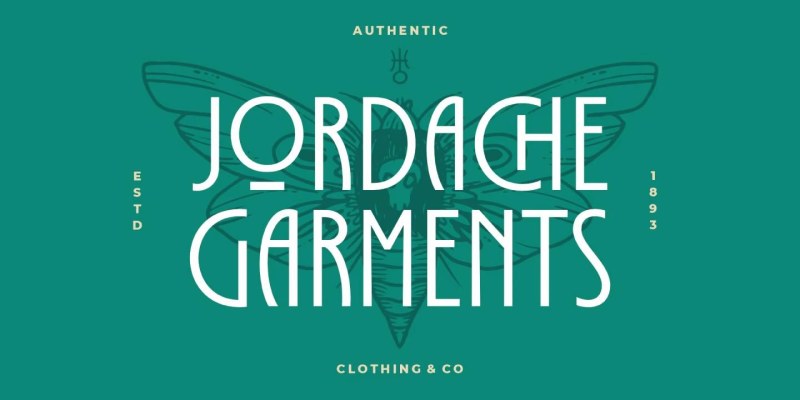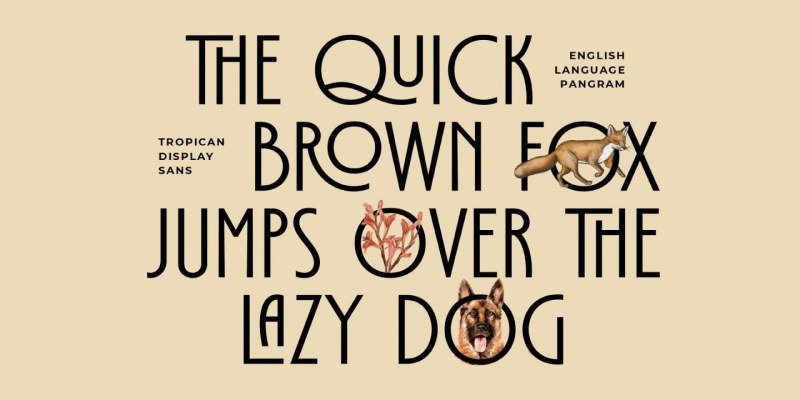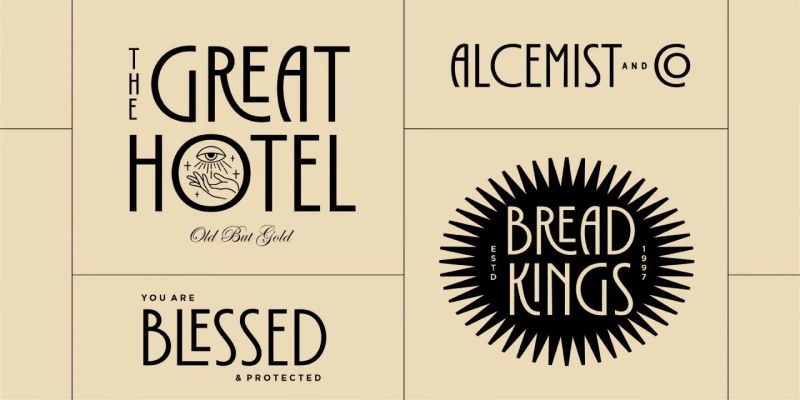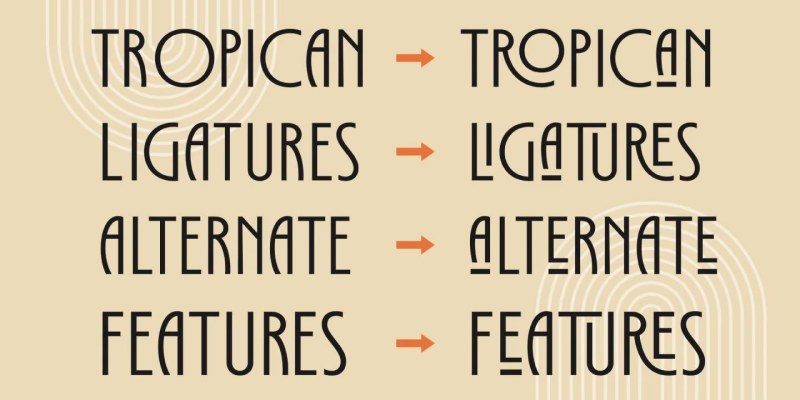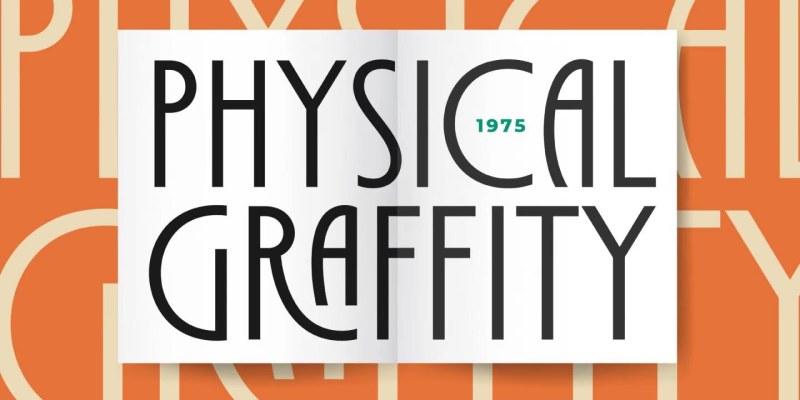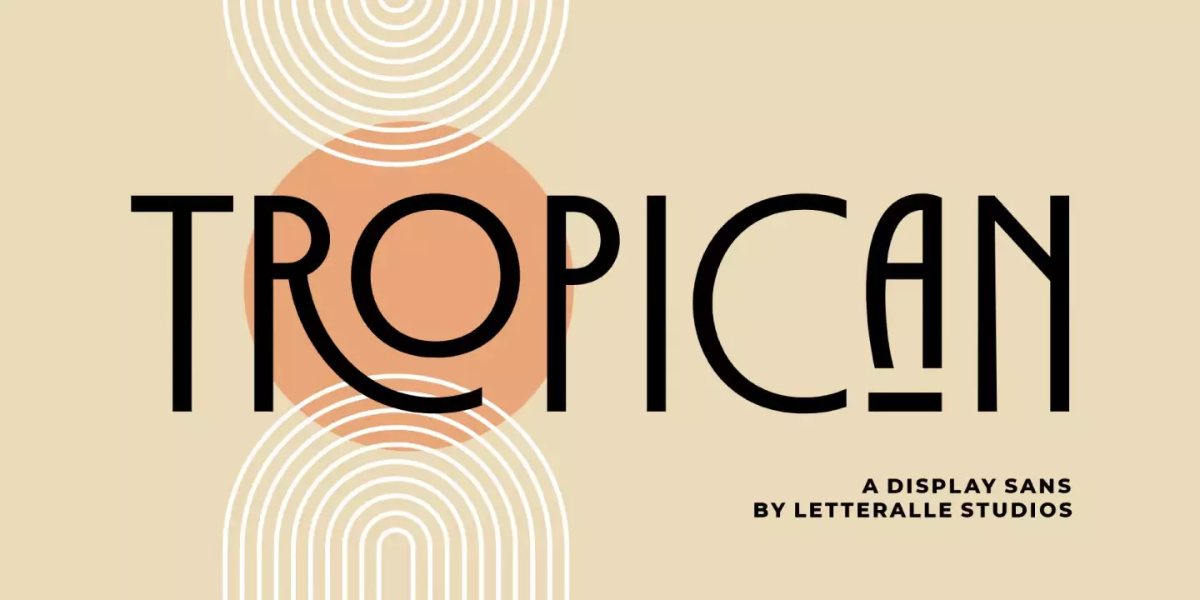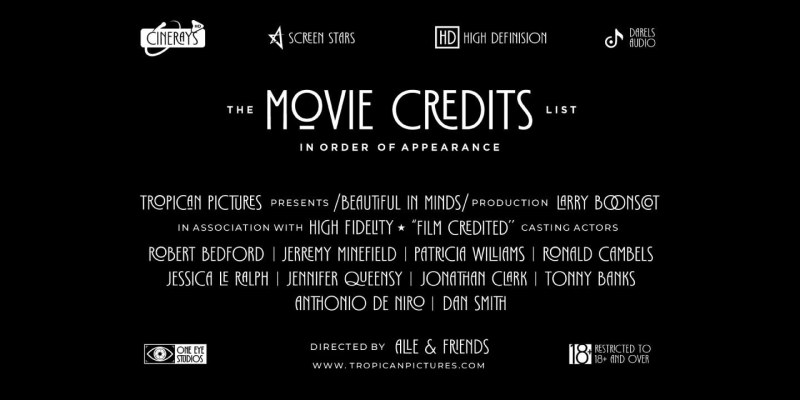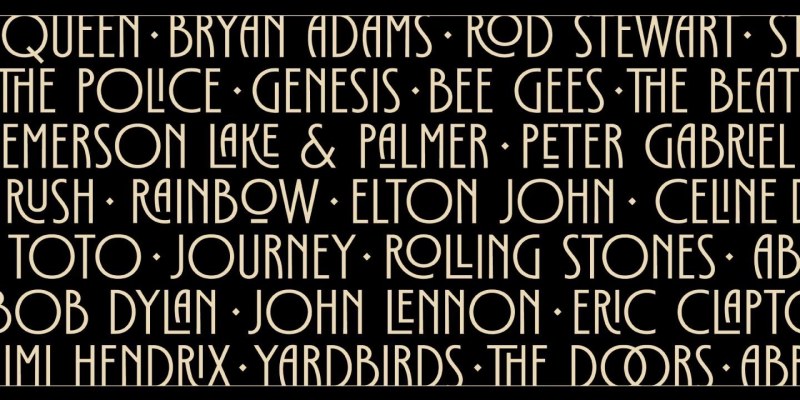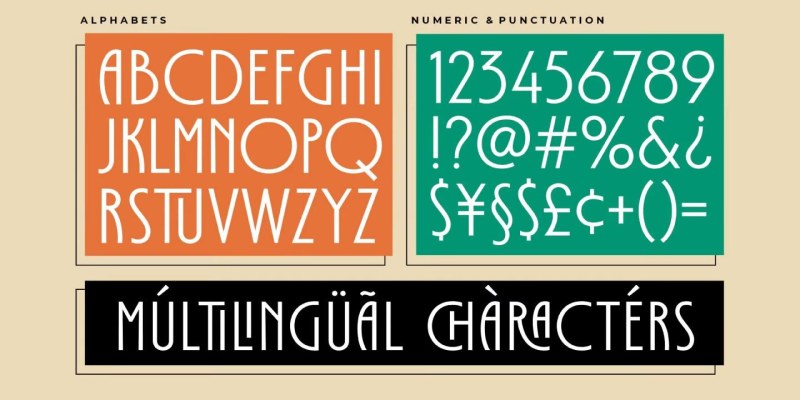
Tropican Font
Tropican is an uppercase sans serif font with a vintage and minimal style. Tropican brings many ligatures that will make this font even more interesting and different. T…
Tropican is an uppercase sans serif font with a vintage and minimal style. Tropican brings many ligatures that will make this font even more interesting and different. Tropican is a versatile font, perfect for display, editorial projects, Logo design, Wedding, Clothing Branding, product packaging, magazine headers, or simply as a stylish text overlay to any background image.
Where Tropican Font works best
Tropican Font is built for size: event posters, hero headlines and billboard-style layouts.
High contrast display type like Tropican Font reads instantly in thumbnails and motion graphics.
What is Tropican Font good for?